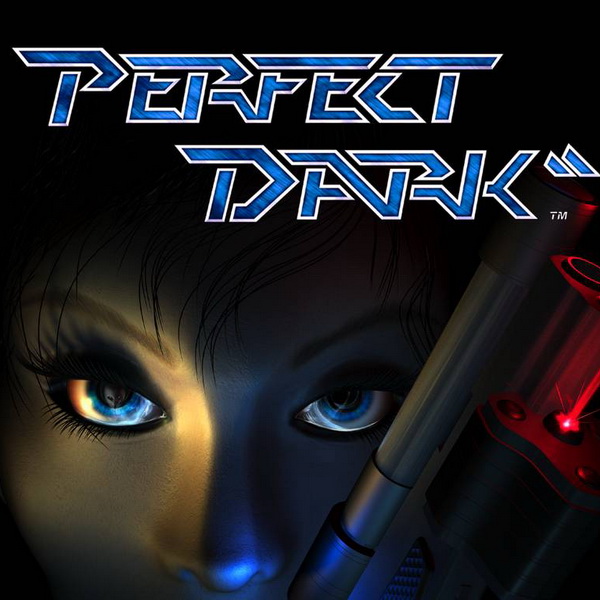
Perfect Dark Font
Fonts in UsePerfect Dark is a first-person shooter video game developed by Rare and published by Nintendo. The game follows the adventures of Joanna Dark, a secret agent who uncovers a conspiracy involving extraterrestrial technology and corporate espionage.
The box art of the game features a font called Perfect Dark by Brian Kent from ÆNIGMA FONTS, which resembles the game's title. This font, available in uppercase letters, numbers, and select punctuation marks, can be downloaded for free from the Fonts Used Section.